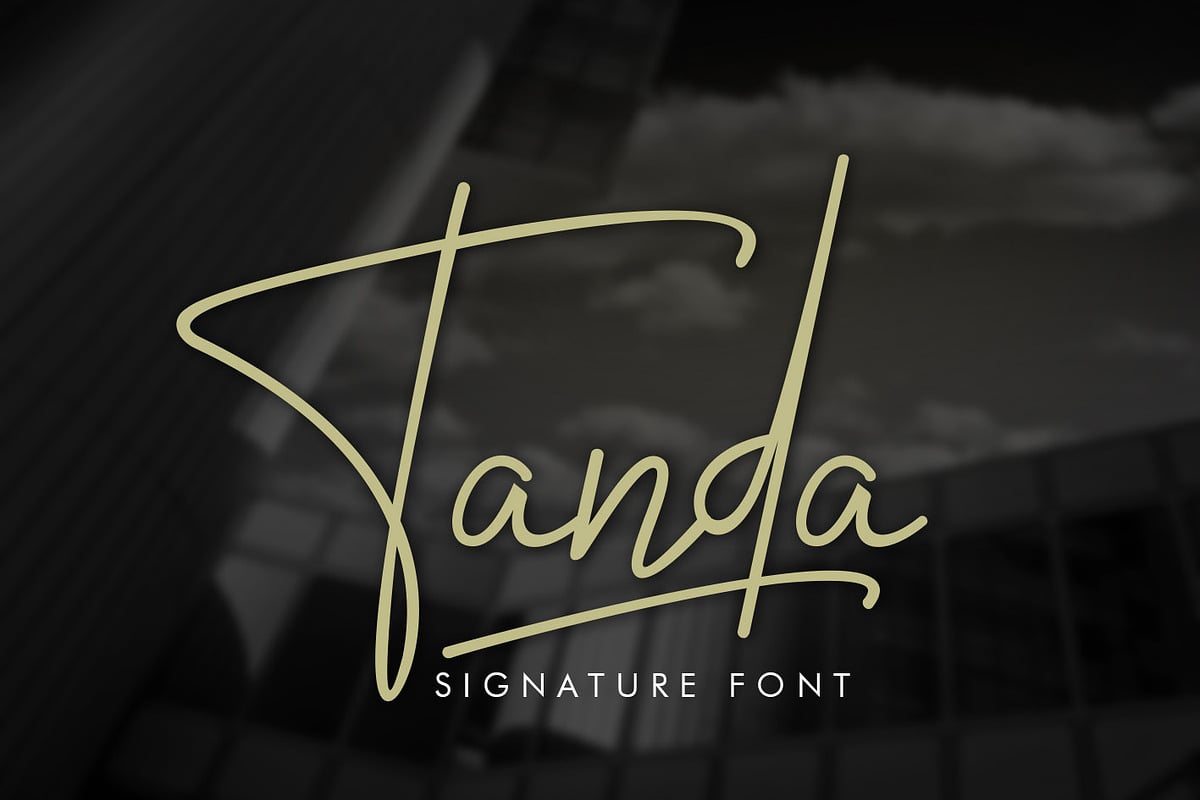
Tanda Signature Font
Create stunning handwritten designs with Tanda Signature - a fresh and uniquely crafted handmade typeface. This distinctive signature font brings an authentic handcrafted feel to your creative projects. Tanda Signature is perfectly suited for logos, stationery, posters, apparel, branding, wedding invitations, cards, taglines, layout design, and much more! Files included: Tanda (otf & ttf) Tanda Swash (otf & ttf) If you have any questions, don't hesitate to contact me by email khurasantyp...